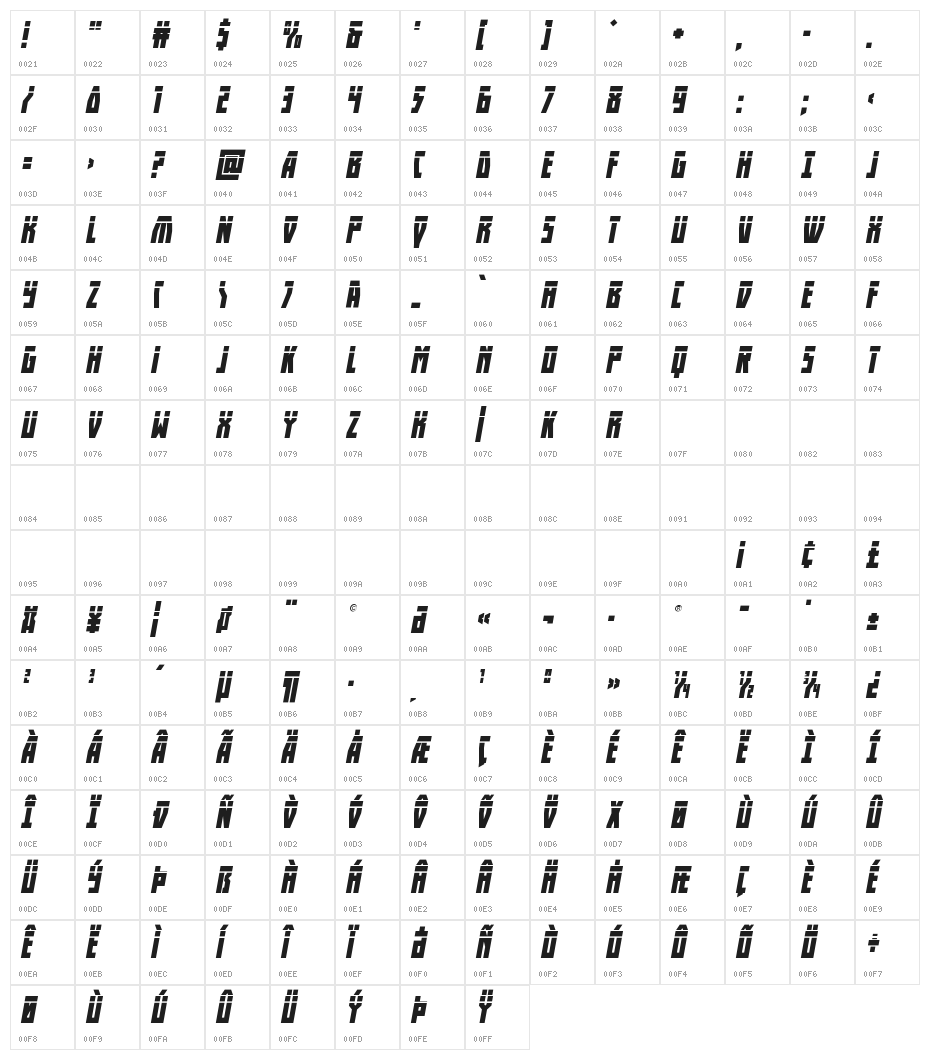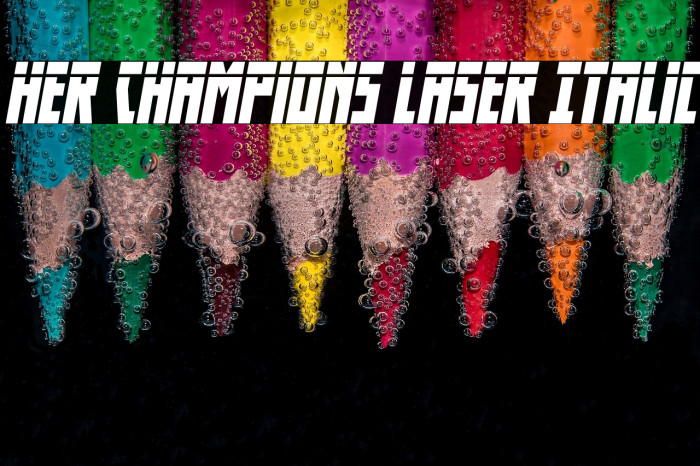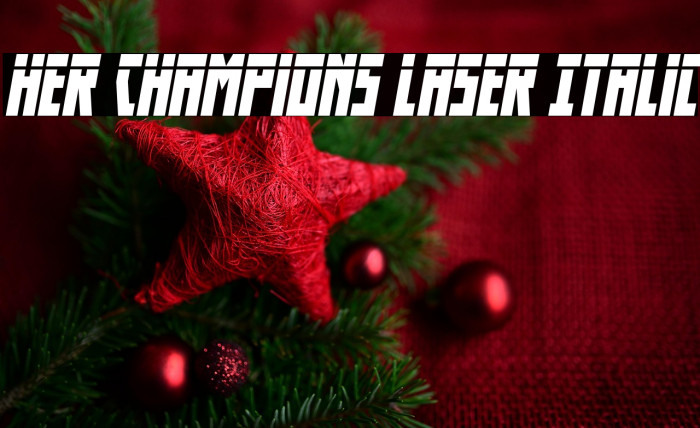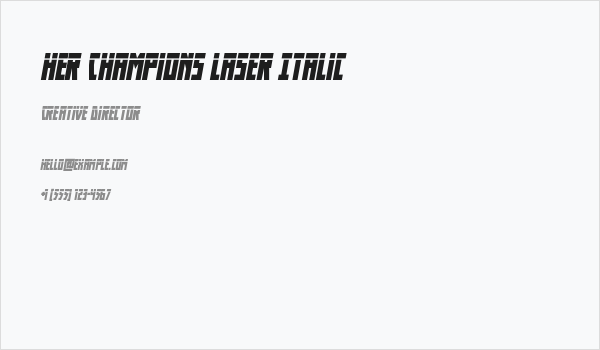
Her Champions Laser Italic Font
Her Champions Laser Italic Description
This font features a bold and dynamic style with sharp, angular edges and a distinct italic slant. The characters are tightly spaced, creating a compact and energetic appearance. The uppercase letters are particularly striking, with a futuristic and aggressive design that suggests movement and speed. The numbers and special characters maintain this bold aesthetic, ensuring consistency across all elements. This font is ideal for projects that require a strong visual impact and a modern, edgy feel.
| Proposed Projects | Ideal for sports branding, event posters, video game titles, and dynamic logos. |